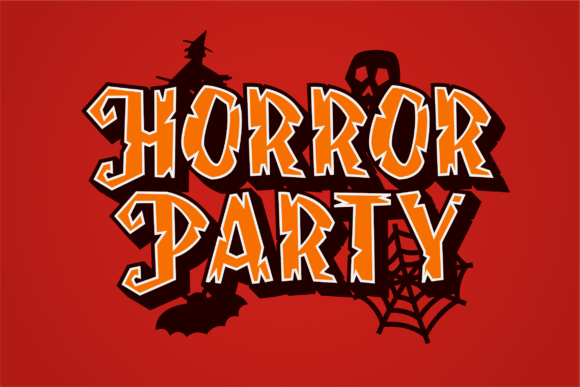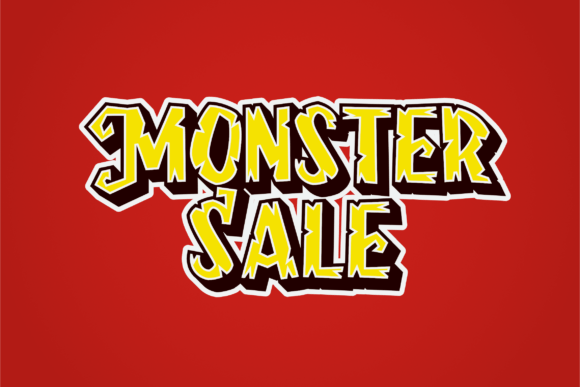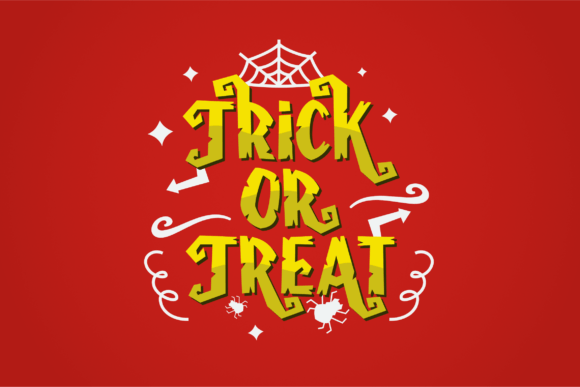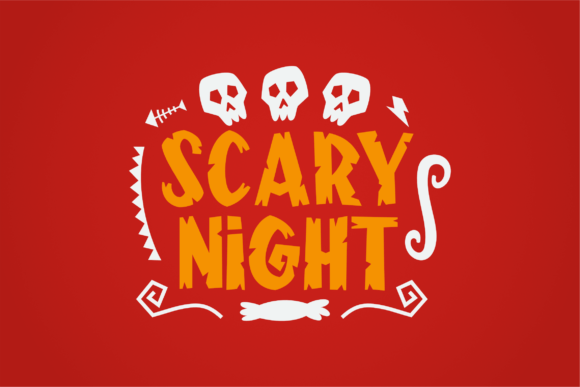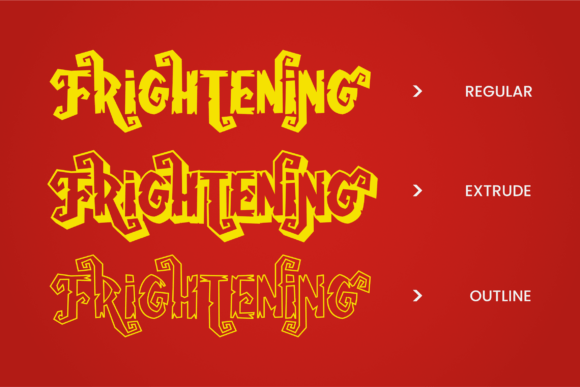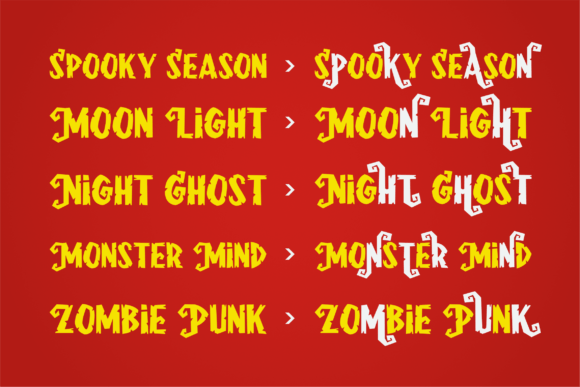
Introduction to Frightening Font
As a designer, there’s no feeling quite like the thrill of creating something from scratch, especially when it’s a project that brings a smile to your face. I still remember the night I decided to design a Halloween-themed website for a friend’s party. I was on a mission to find the perfect font – one that would capture the spooky, yet playful essence of the holiday. And then, I stumbled upon it: the Frightening Font. Its bold, playful display design was like a breath of fresh air, and I knew I had to dive deeper.
What I love about the Frightening Font is its versatility. Whether you’re working on a design project that requires a high-quality, free download or simply need a unique font to give your Halloween decorations a boost, this font is a valuable resource. With its transparent background and layered design, you can create a sense of depth and dimension that’s simply irresistible. And with its cartoonish aesthetic, it’s perfect for designers who want to add a touch of whimsy to their creative projects.
As we dive into the world of the Frightening Font, I’ll share some of my favorite tips and tricks for using this fantastic design resource. From creating spooky titles to designing festive posters, I’ll show you how to bring this font to life and make it a star of your next creative project.
Key Features of Frightening Font
- High-quality design resource with a unique, eerie aesthetic perfect for creative projects.
- Comes with a transparent background, making it easy to use in various design applications.
- Designed at a high resolution of 300 DPI for crisp and clear display in various sizes.
- Can be scaled up or down without losing its quality, making it ideal for use in logos, titles, and other design elements.
- Perfect for adding a spooky or mysterious touch to your design, making it a great choice for Halloween-themed projects or other creative endeavors.
Honest Review: Frightening Font
I recently had the chance to test out the Frightening Font, a unique design resource that’s perfect for adding a spooky twist to your next creative project. One of the things that really stood out to me was the high quality of the font, which is crisp and clear even when used on a transparent background.
- ✨ The font is incredibly versatile and can be used in a variety of creative contexts, from horror movie posters to Halloween-themed decorations.
- ✨ The high quality of the font ensures that it looks great even at larger sizes, making it perfect for use in bold headlines and titles.
- ⚠️ The font is quite limited in its character set, which may make it difficult to use for longer blocks of text.
- ⚠️ The font’s spooky aesthetic may not be to everyone’s taste, and may not be suitable for all types of projects.
Overall, I was really impressed with the Frightening Font, and I think it’s a great addition to any designer’s toolkit. Just be sure to keep its limitations in mind when using it in your projects.
How to Use Frightening Font
Frightening Font is a versatile and high-quality design resource that can elevate your creative project. With a transparent background, this font is perfect for adding a spooky touch to your designs.
Getting the Most Out of Frightening Font
To get the most out of Frightening Font, experiment with different font sizes, styles, and colors. Combine the font with other design elements, such as images and graphics, to create a unique and captivating design.
Frightening Font is perfect for Halloween-themed designs, horror movie posters, and spooky website headers. Use the font to add a touch of eeriness to your creative projects.